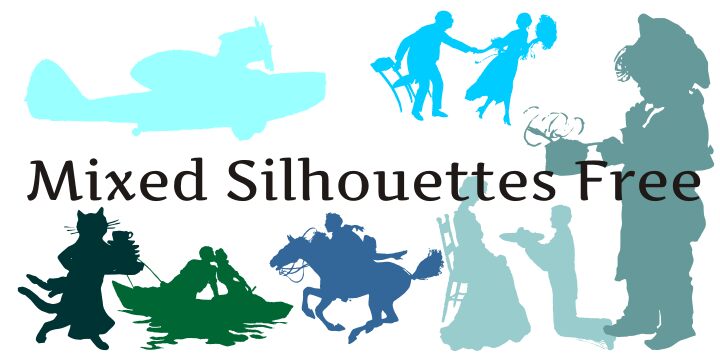
Mixed Silhouettes Free
Mixed Silhouettes is a captivating dingbat font designed by Intellecta Design. With its striking silhouette motifs, this font exudes a timeless elegance and versatility.
The varied silhouettes, ranging from classical figures to whimsical scenes, offer a rich tapestry of visual elements. This font's aesthetic lends itself beautifully to a wide array of design applications, from vintage-inspired branding to sophisticated editorial layouts.
Its unique character makes it an ideal choice for adding depth, texture, and a touch of sophistication to any project.